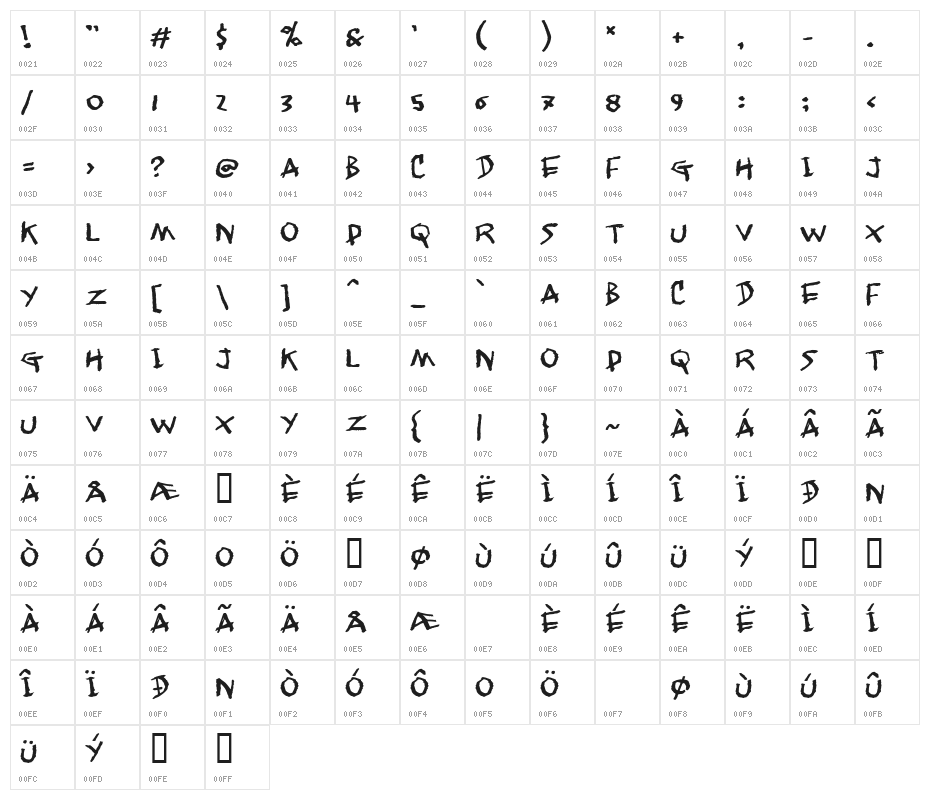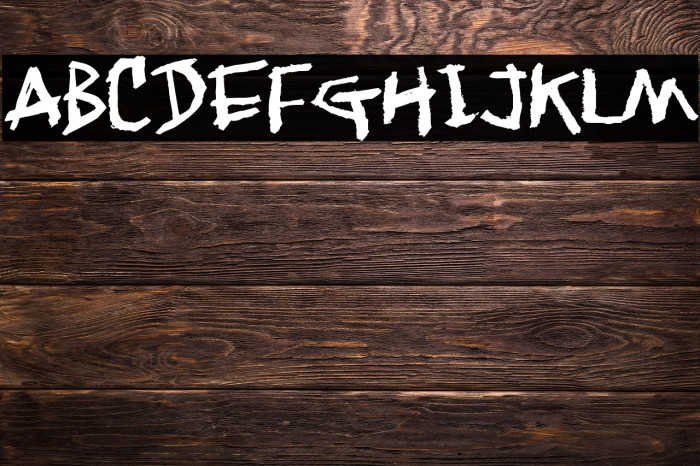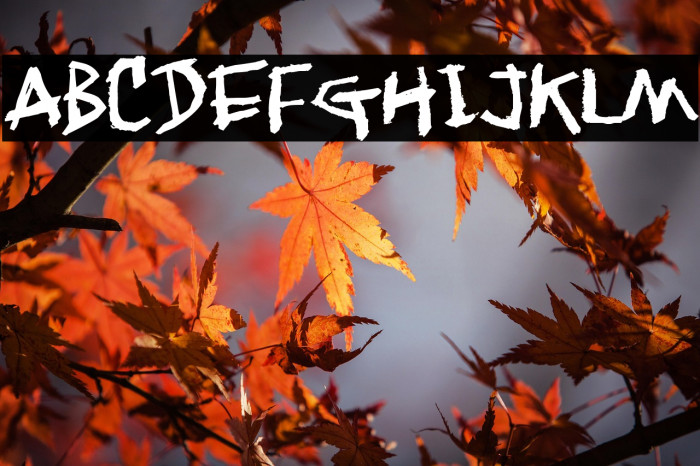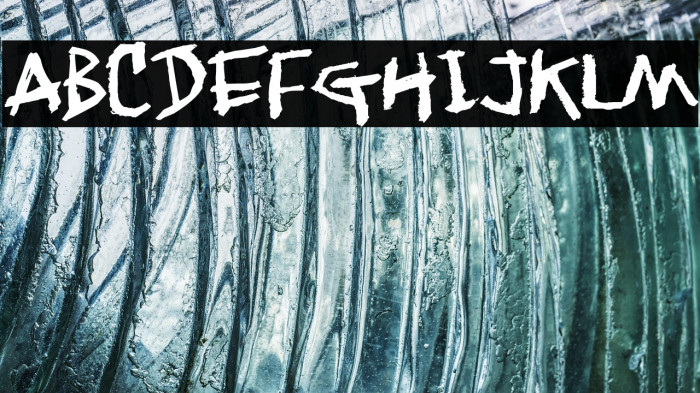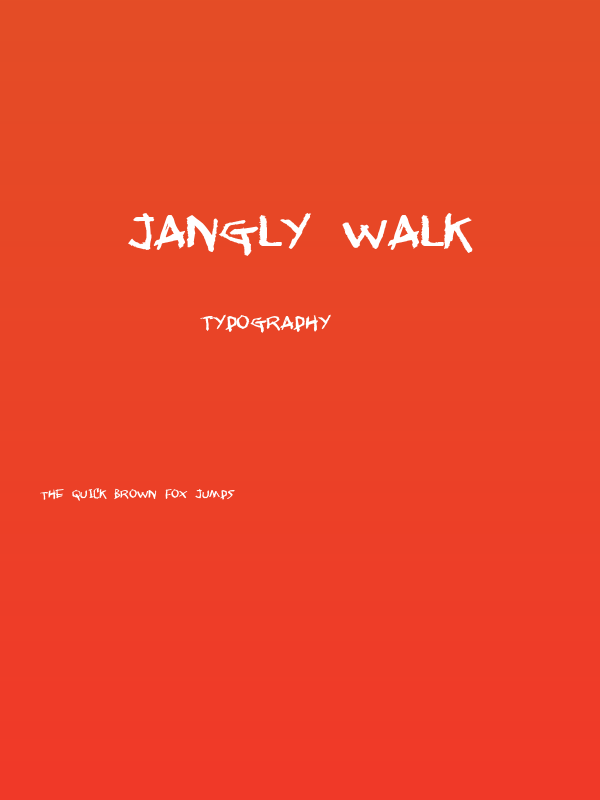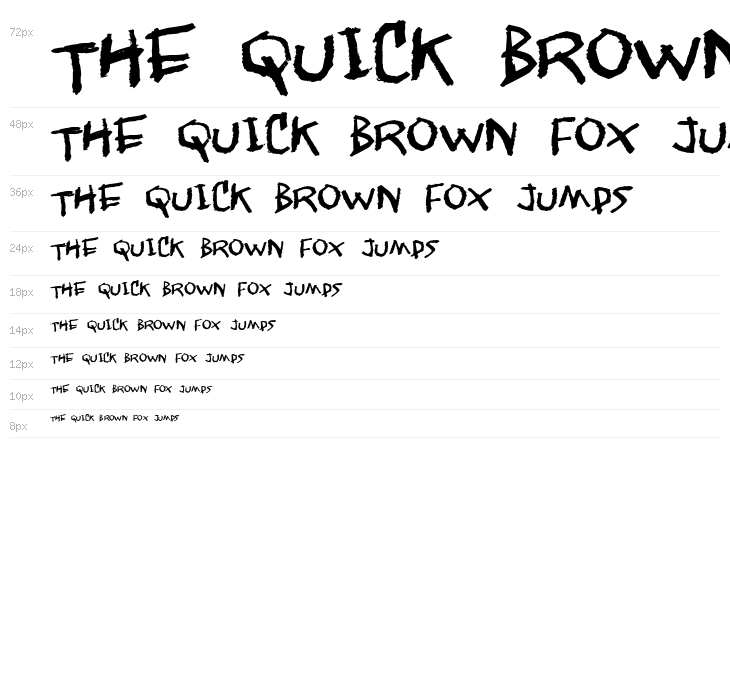
Jangly walk Font
Jangly walk Description
This font exhibits a bold and expressive style, characterized by its rough, hand-drawn appearance. The letters have an irregular, jagged edge, giving them a dynamic and energetic feel. The uppercase and lowercase letters maintain a consistent style, with a slightly uneven baseline that adds to the casual, informal aesthetic. The numbers and special characters follow the same design principles, ensuring a cohesive look across all glyphs. This font is ideal for projects that require a personal touch or a sense of spontaneity, such as posters, album covers, or creative branding.
| Proposed Projects | Posters, album covers, creative branding, informal invitations. |